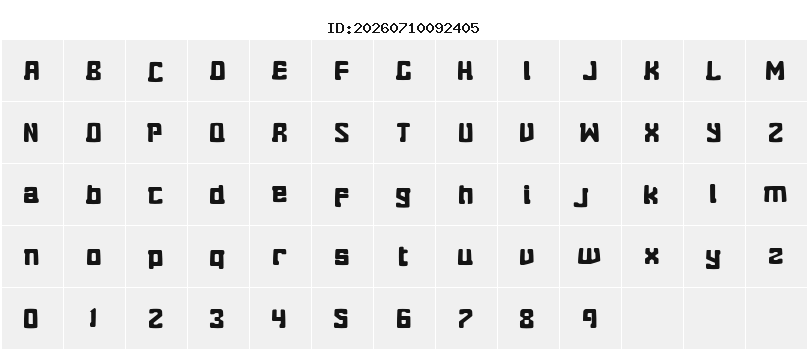
Eightball Straight Preview
• Font Name: Eightball Straight
• Font Style: Straight
• Full Font Name: Eightball Straight
• Designer: David Brodie
• Description: Eightball is a font designed by David Brodie in 2012.
About Eightball Straight.ttf
Eightball Straight.ttf is a modern, elegant sans-serif font designed for ultimate readability and visual harmony. Perfect for branding, headlines, web design, and print materials.